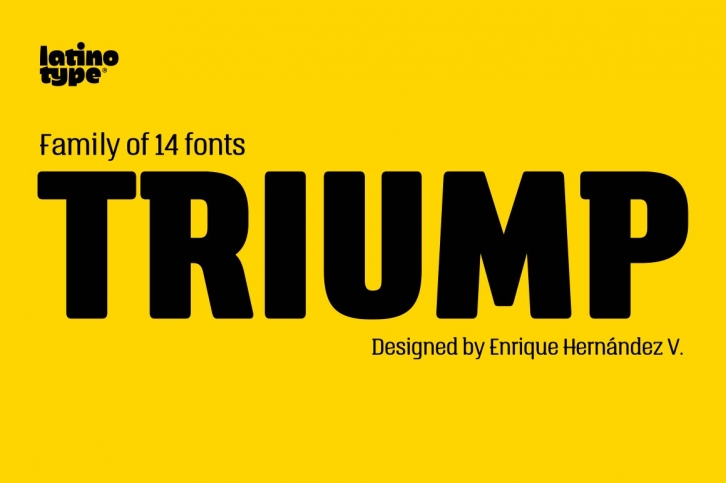
The typeface family Triump is a simple sans serif with 6 weights from Thin, ideal for use as an epigraph, to Black for head titles of special impact. Excellent for applying in graphic design as logos, trademarks, posters, editorial and web design. Inspired by the classic types of the late twentieth century with rounded corners that give the typography a smooth appearance with rounded ends, with a horizontal stroke that exceeds the vertical in the letters A, E, F, H, J and K which gives a distinct personality. Triump comes with a Black weight in normal and italic Line both upper and lowercase letters, especially to give a vintage look to the designs.